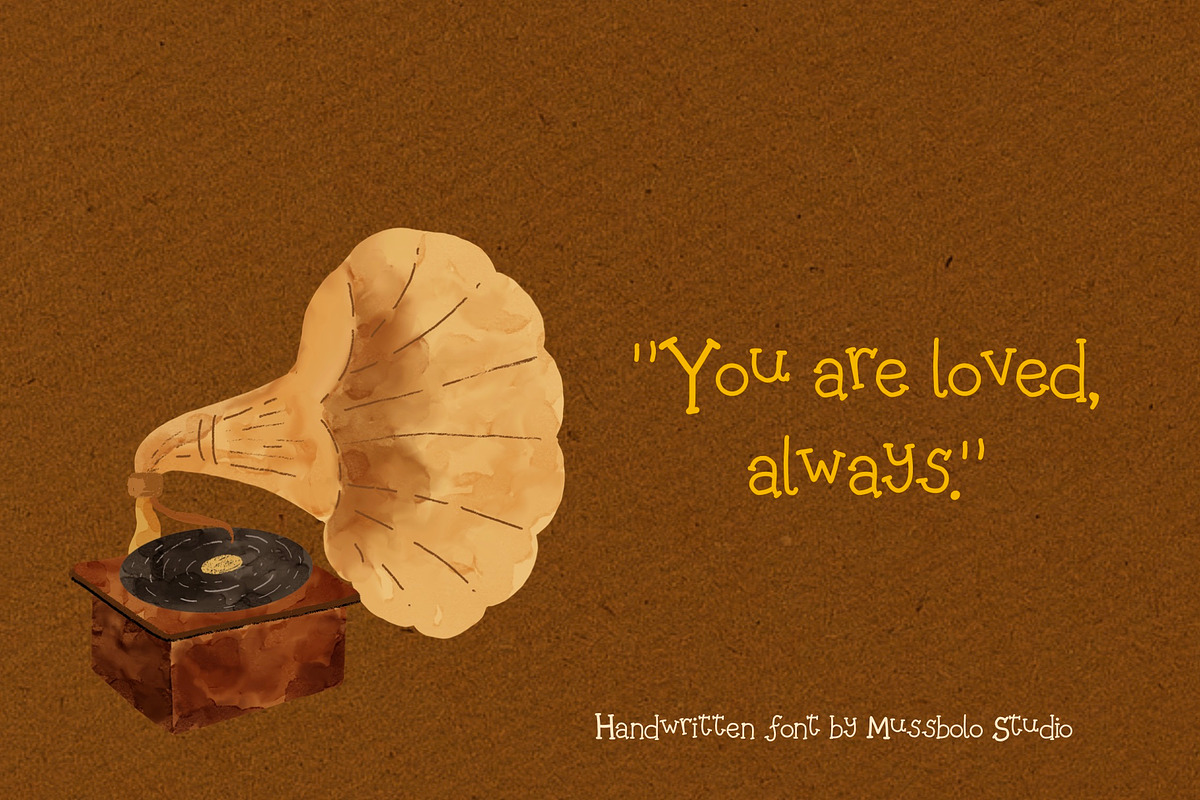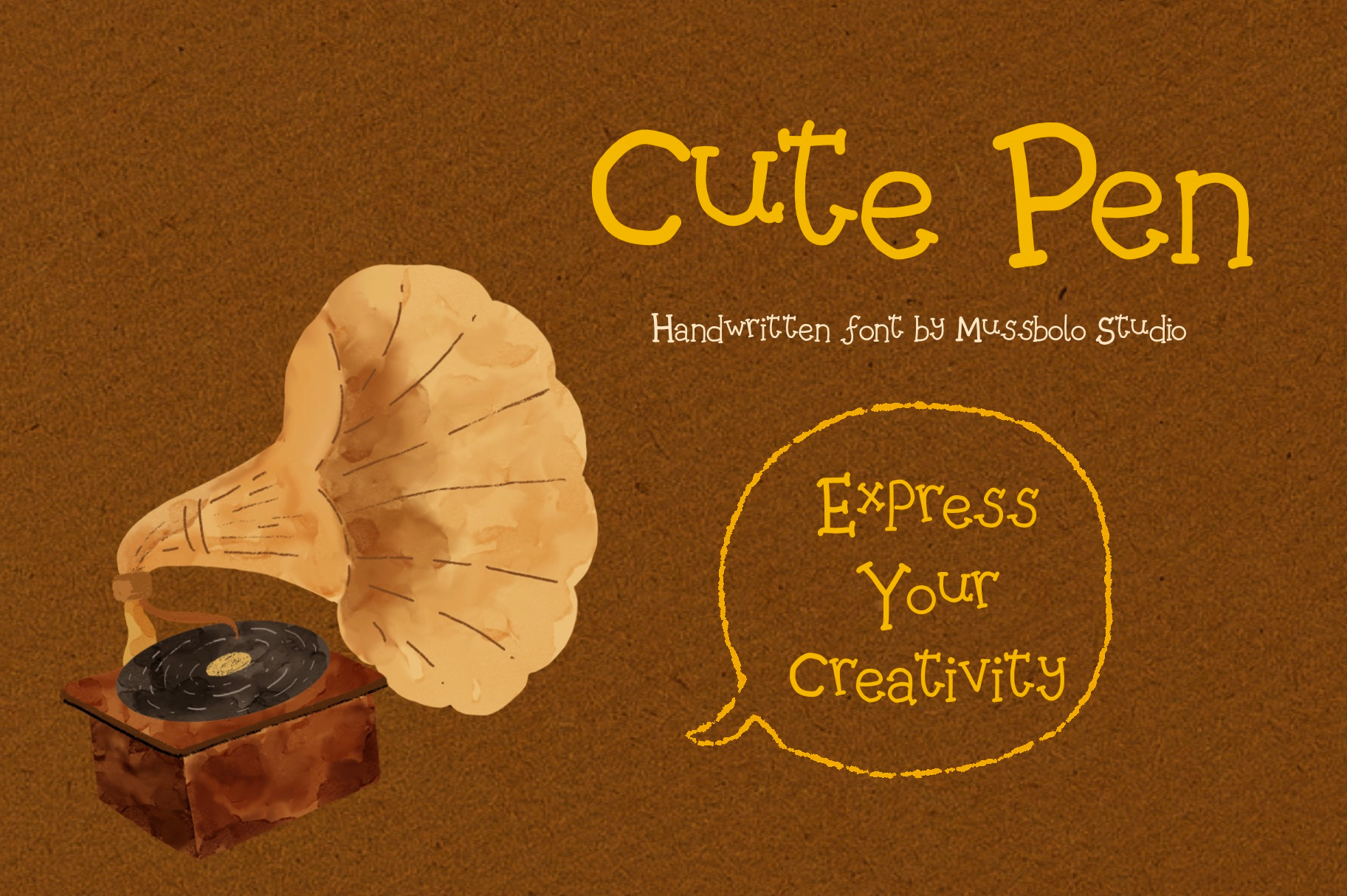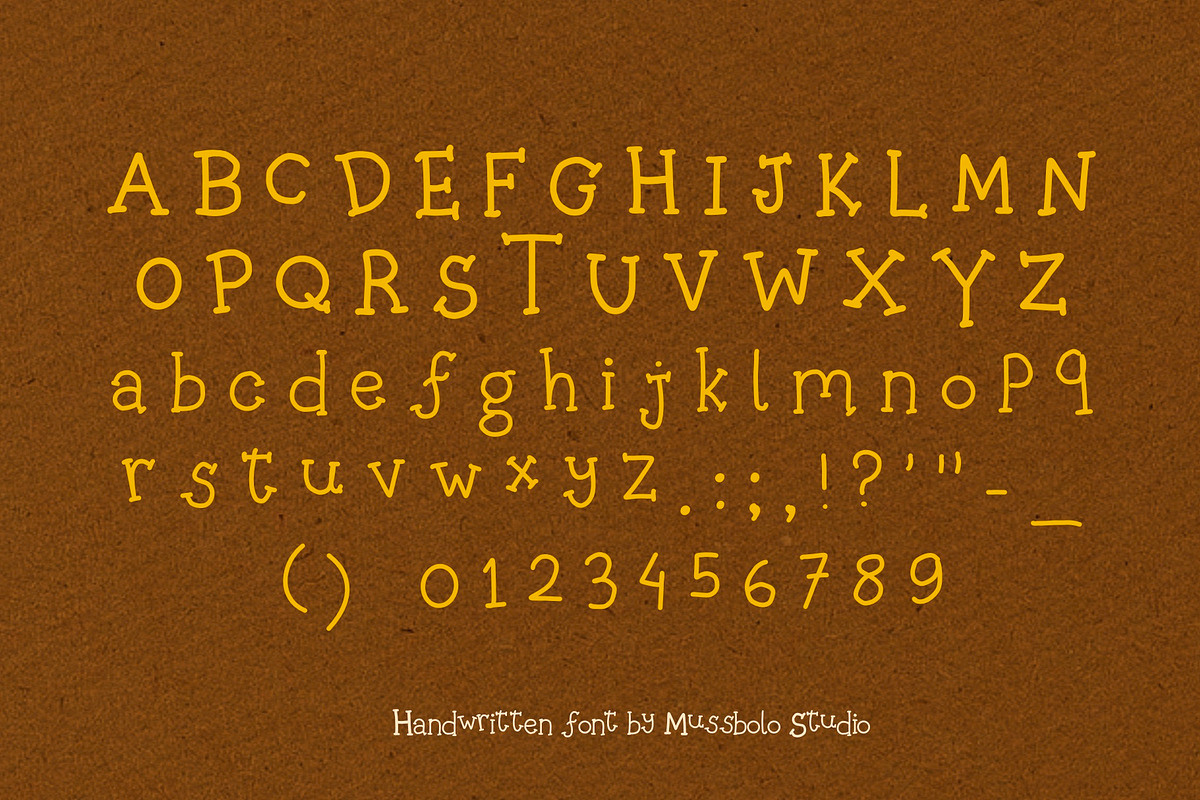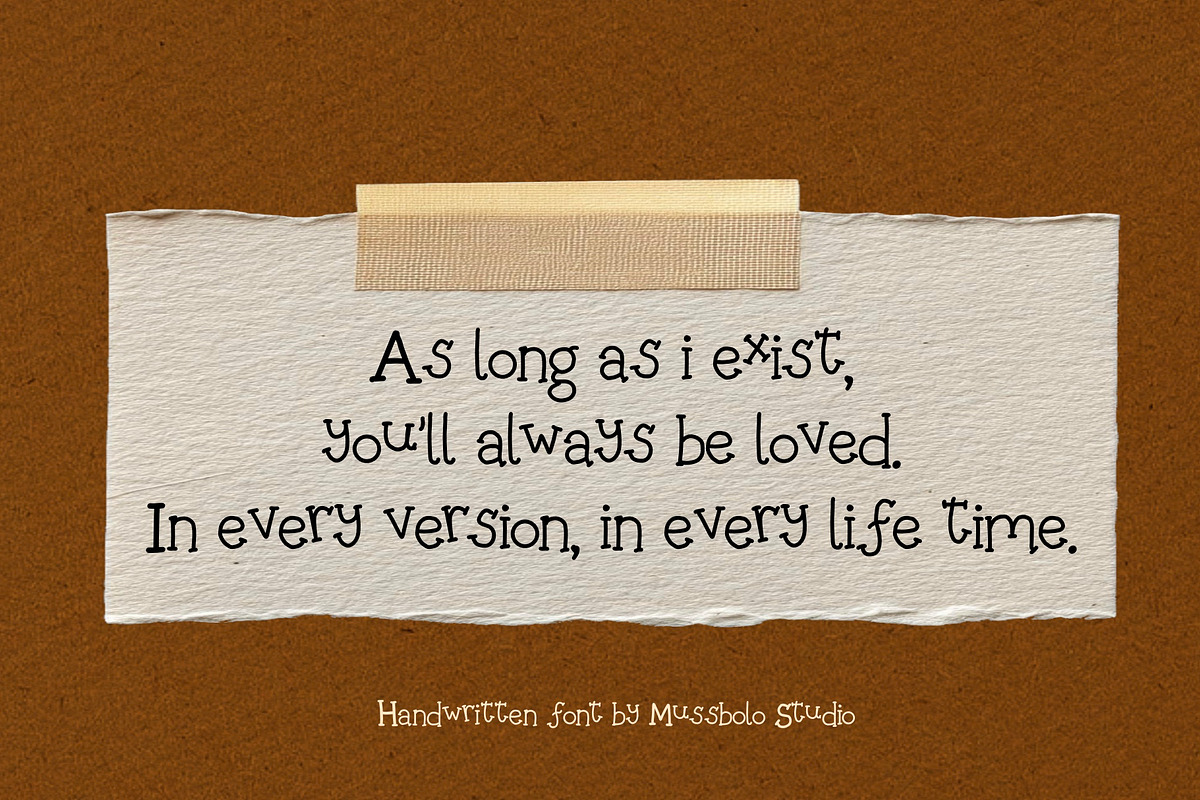
Cute Pen Handwritten Font
Cute Pen is a playful handwritten font inspired by cozy journal notes and creative doodles. Its whimsical letterforms, thin strokes, and handmade charm make it perfect for children's book and many project.
Uppercase & lowercase letters
Basic punctuation